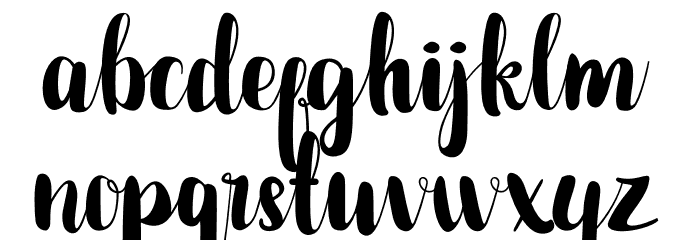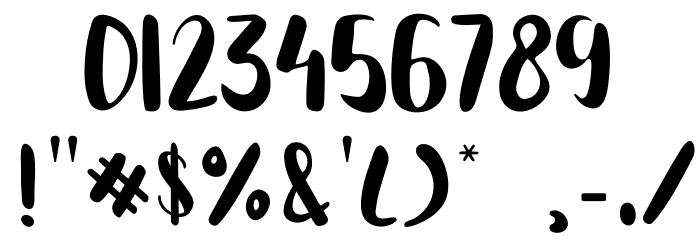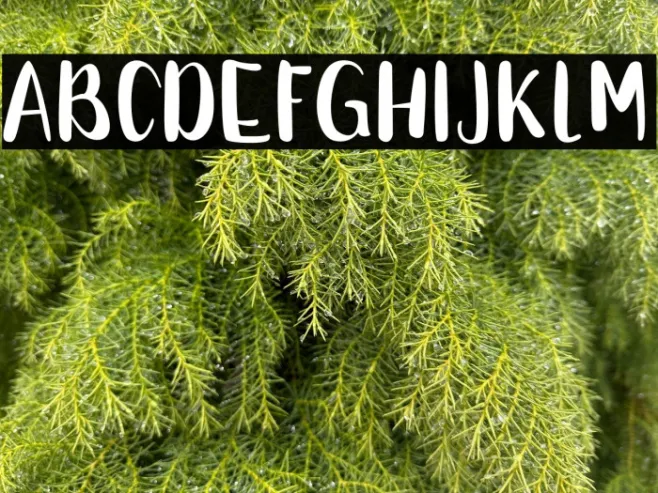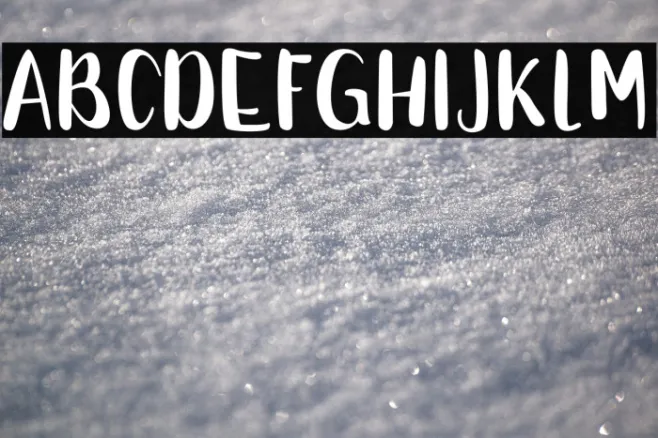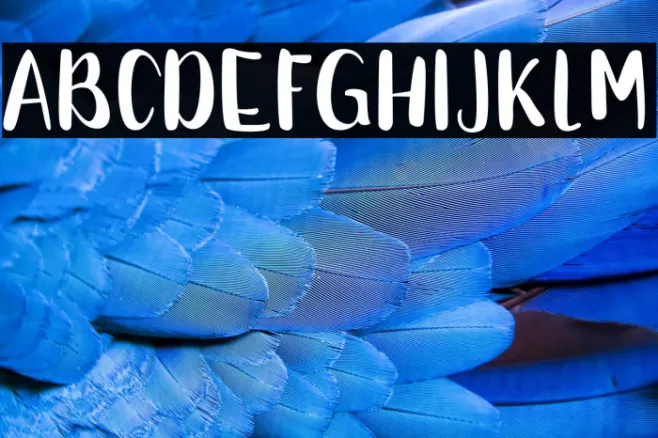
Bettalia Font
This font features a playful and energetic script style with a handwritten appearance. The letters are bold and have a smooth, flowing quality, characterized by thick and thin strokes that create a lively rhythm. The uppercase letters are slightly more structured, while the lowercase letters exhibit a more casual and whimsical flair. The numbers and special characters maintain the same dynamic style, ensuring consistency throughout. This font is ideal for projects that require a personal touch, such as invitations, greeting cards, or branding materials that aim to convey warmth and approachability.
A playful, handwritten script font with bold, flowing strokes.
- Font: Bettalia
- Proposed Projects: Ideal for invitations, greeting cards, branding, and personal projects.